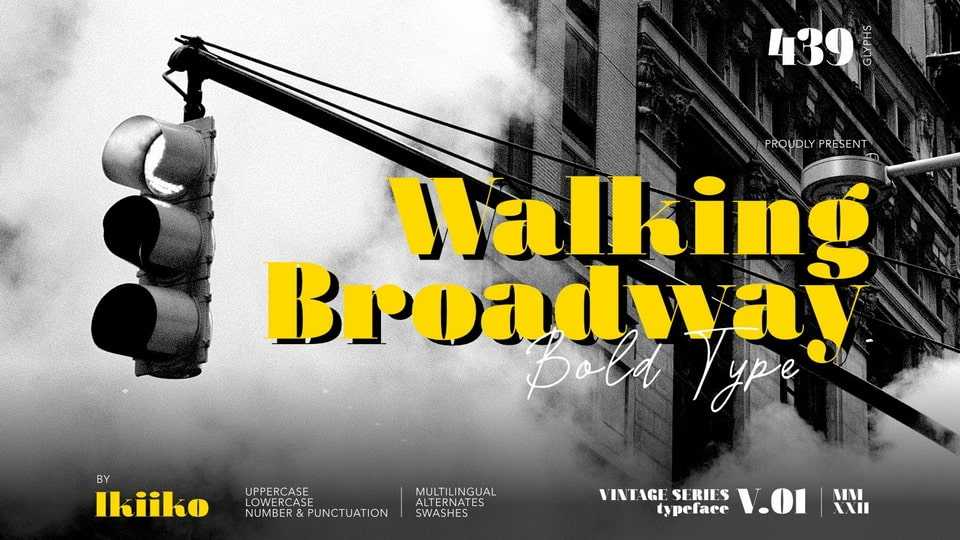
Download Walking Broadway font, a serif bold type, that inspired by typography from a vintage movie and newspaper at that era. This typeface is designed to give a formal yet old style look.